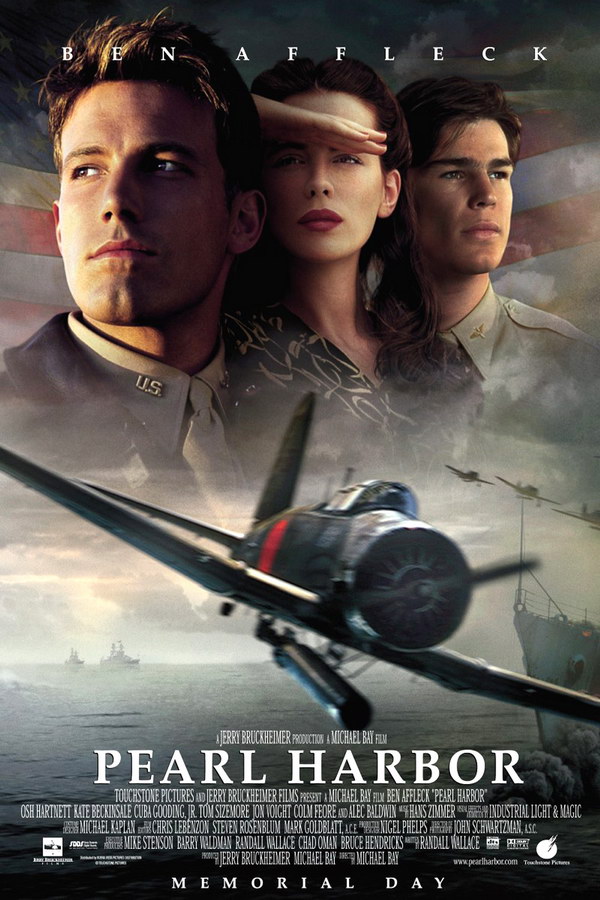
Fonts in UsePearl Harbor is a 2001 war film directed by Michael Bay, which portrays the Japanese attack on Pearl Harbor on December 7, 1941 and the aftermath through the eyes of fictional characters.
The movie title font on the poster resembles Palatino Bold, a typeface created by Hermann Zapf that was inspired by his own graceful calligraphy and the Renaissance's humanistic serif designs. Palatino is a commercially available typeface, and additional information is available here.